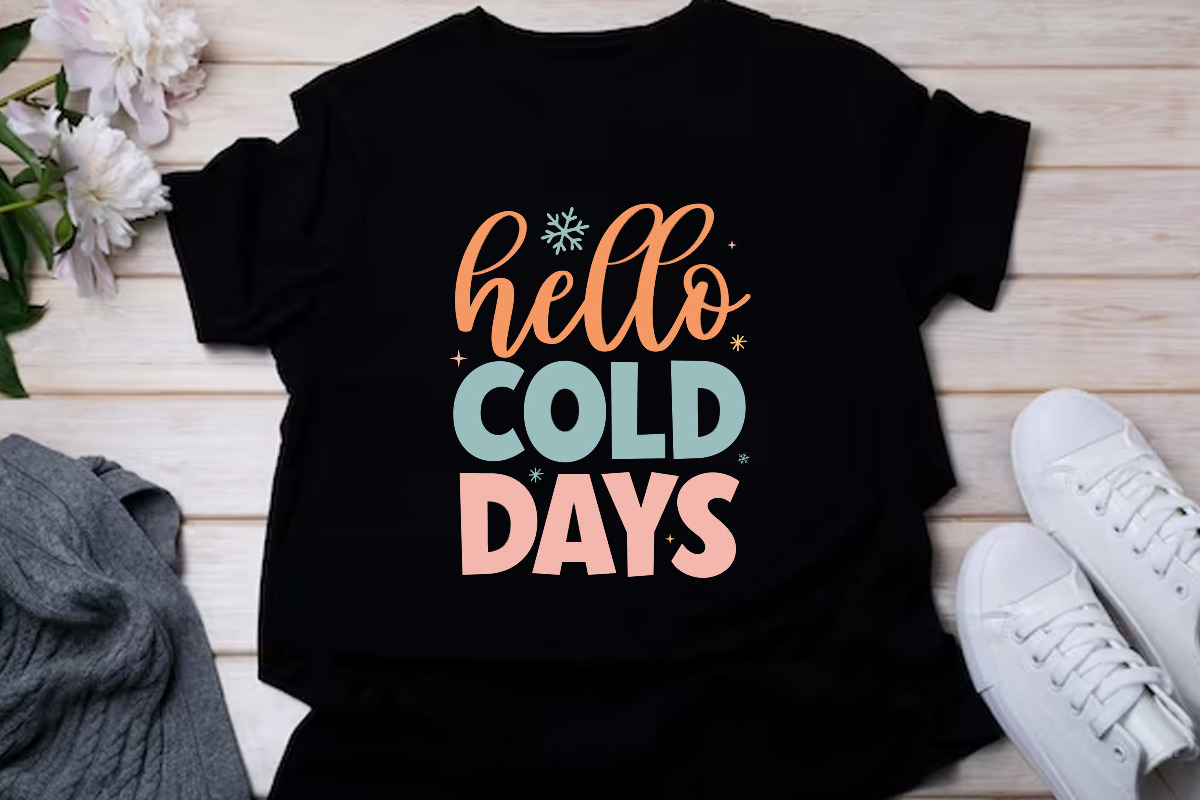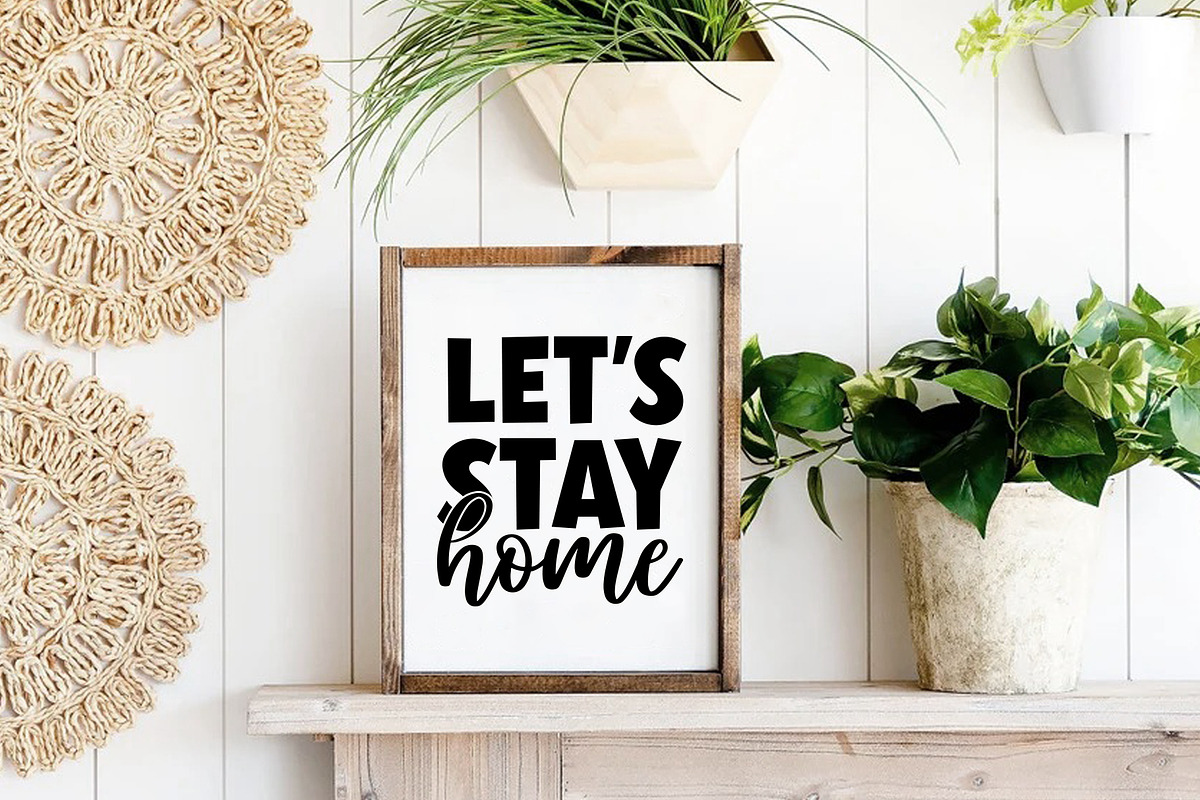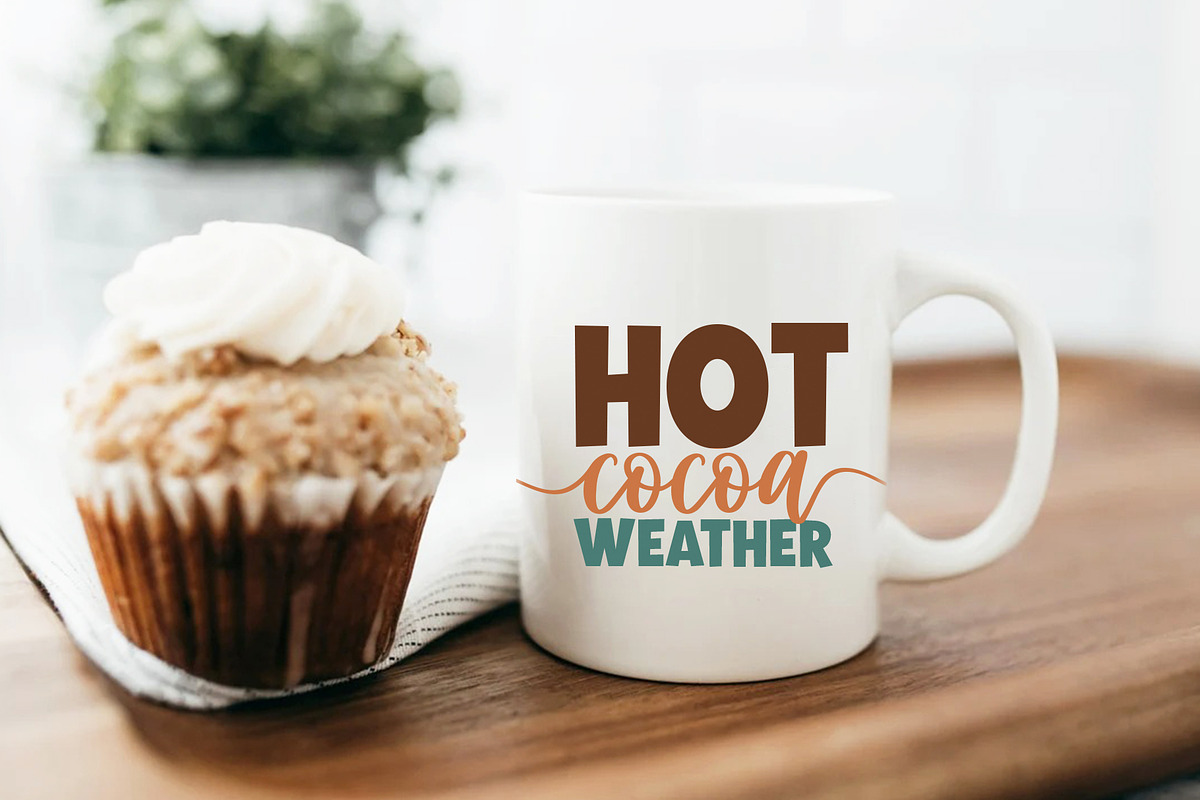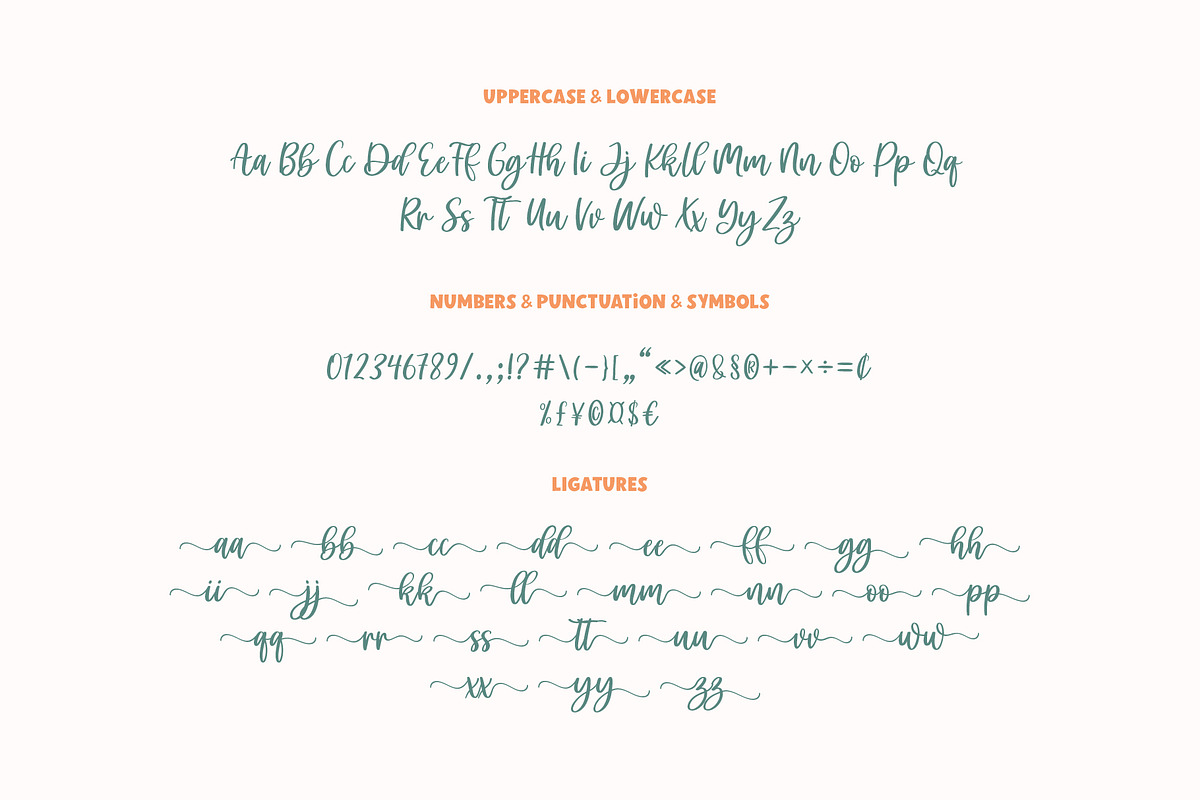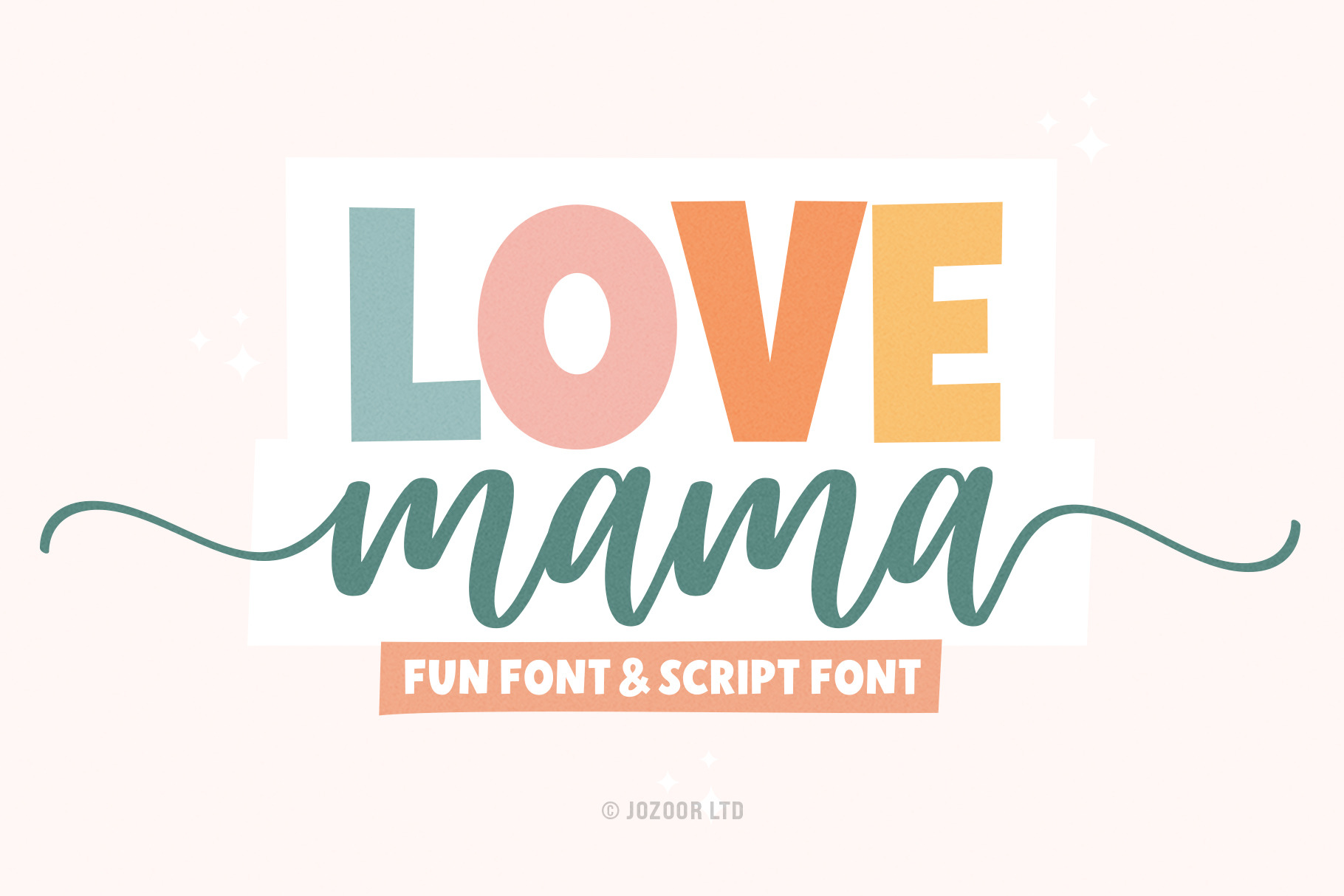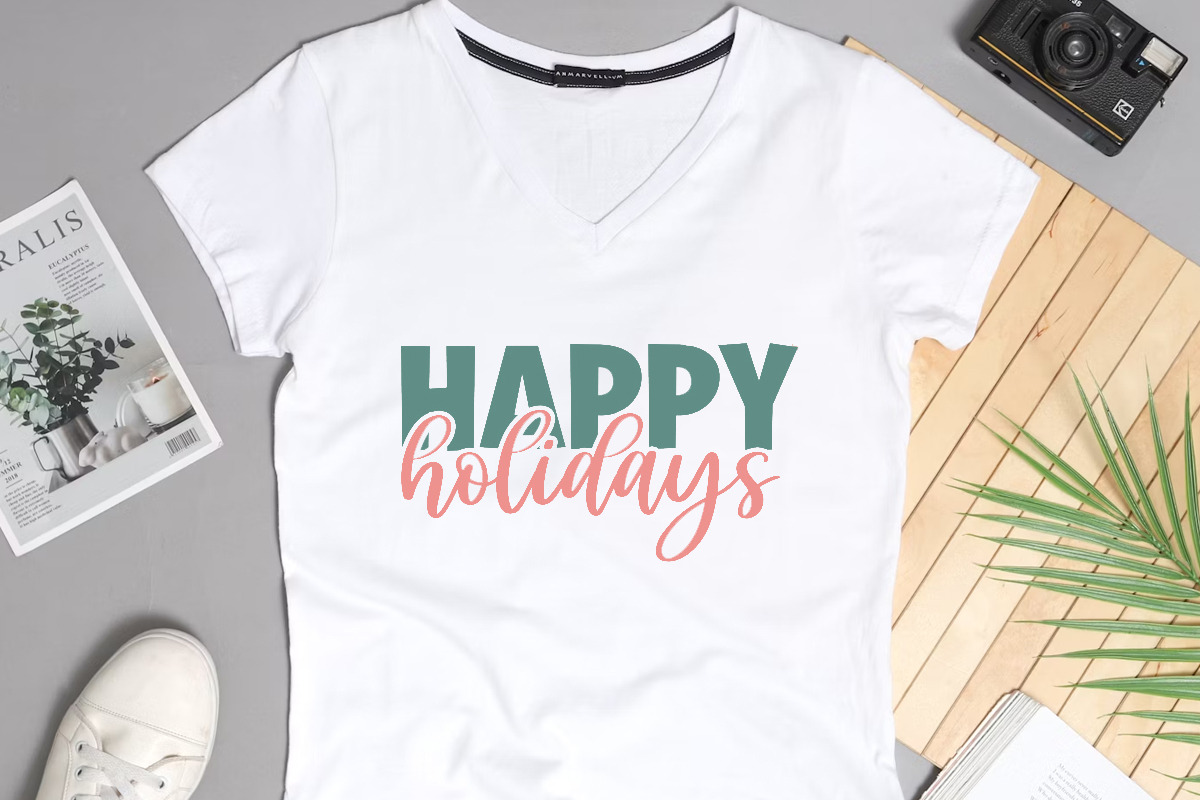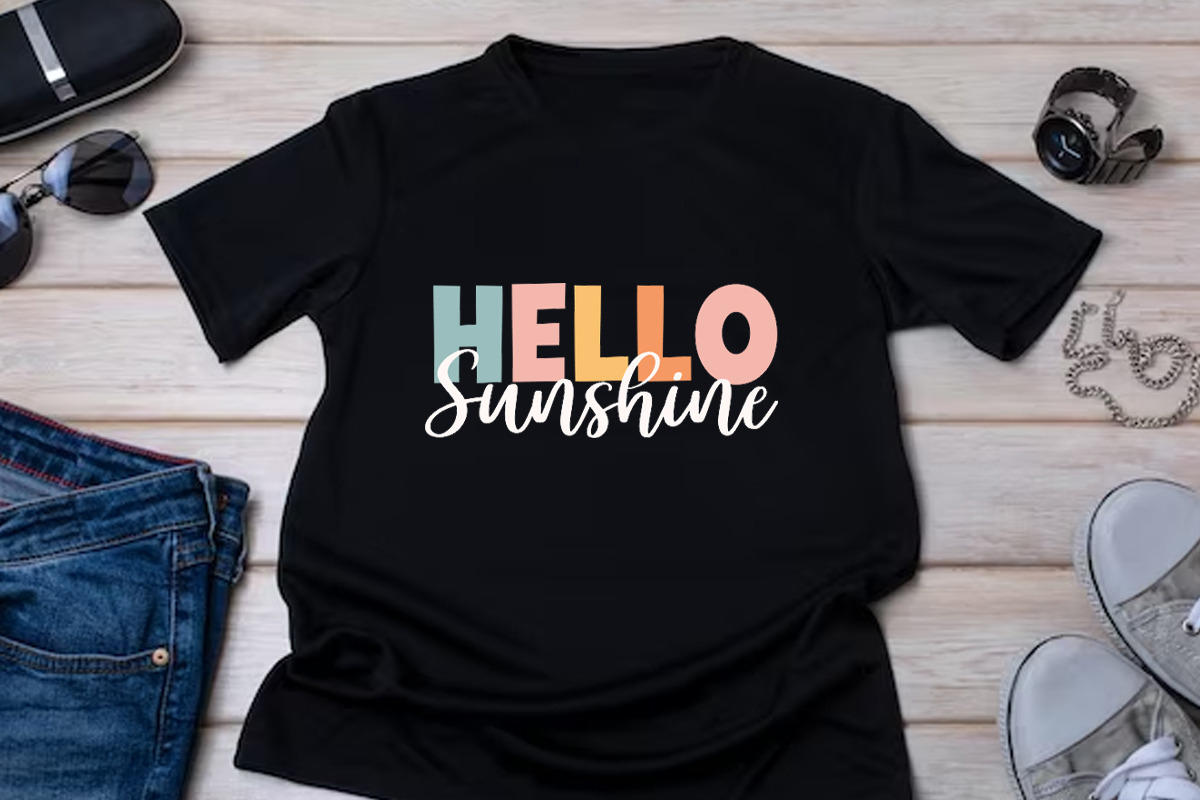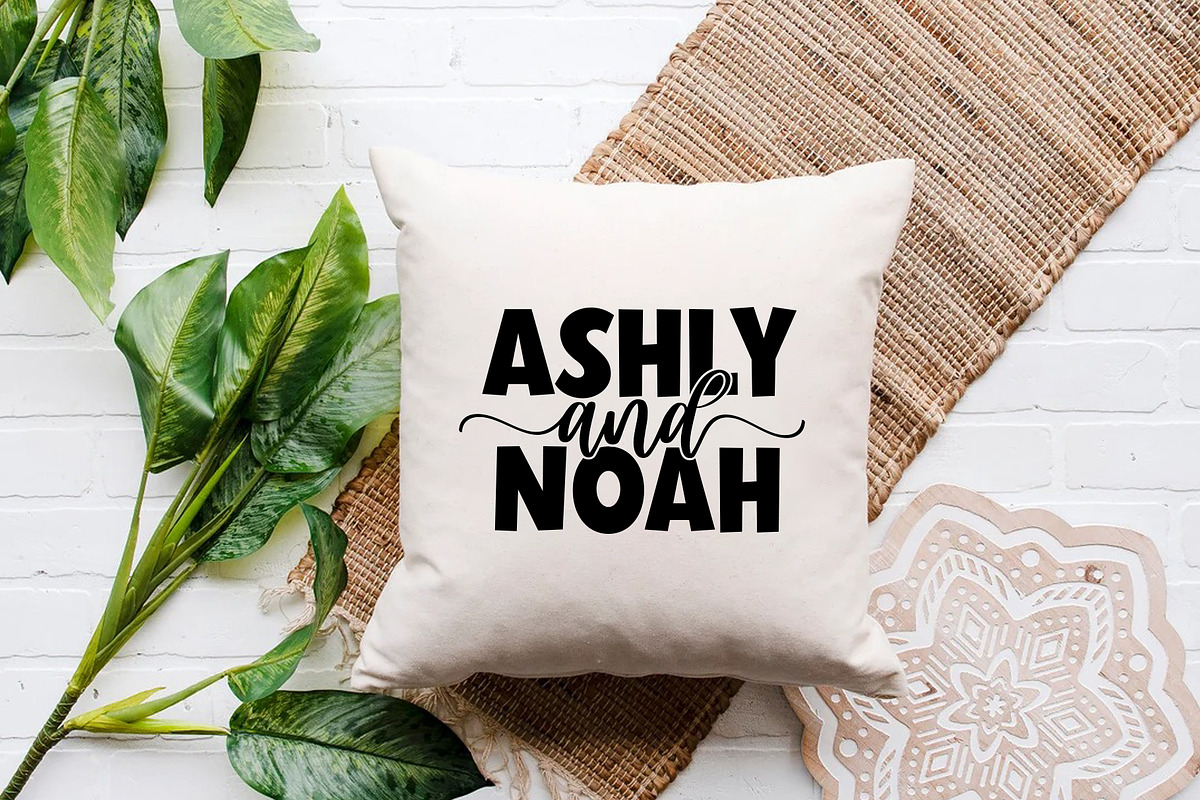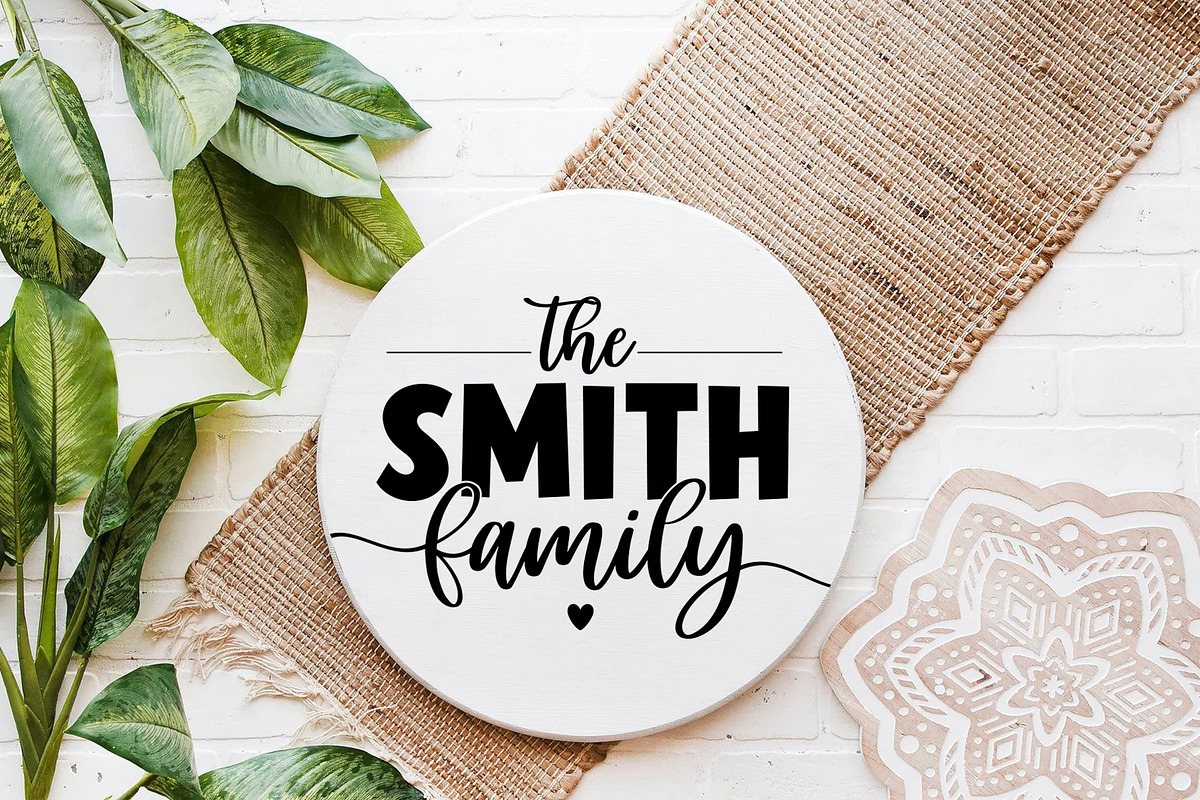
Love Mama - Script Font Duo
Love Mama is a duo-styled handwritten, modern, stylish, and flowing font. It has beautiful and well-balanced characters and as a result, it matches a wide pool of designs. It is the best choice for creating eye-catching logos, branding, and quotes. Add it to your most creative ideas, and notice how it makes them come alive!